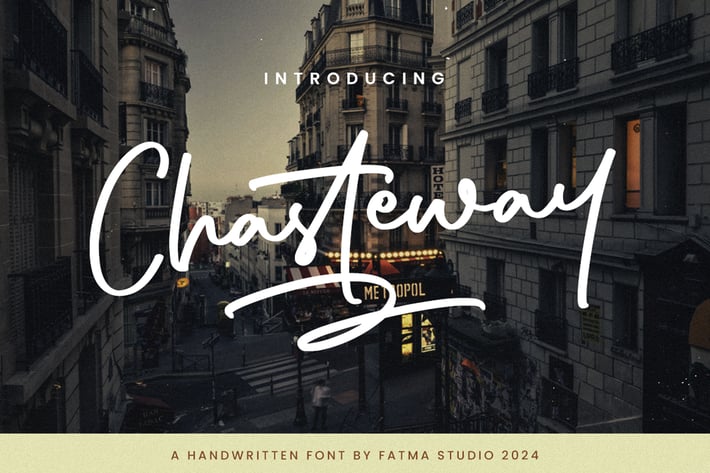
Chasteway - Signature Font
Chasteway is a sophisticated and elegant signature font that captures the essence of personal style and refinement. Itβs characterized by its fluid, cursive strokes and graceful loops, making it ideal for creating a luxurious and authentic handwritten effect.
Ligatures, Swash, Alternates
Letters, Numbers, punctuation